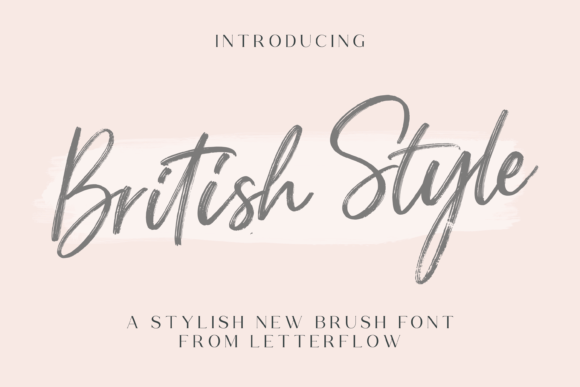
Prepare to be enthralled by the British Style Font, a script masterpiece that captures the essence of elegance and charm. This breathtaking font, meticulously crafted by Letterflow Studio, is a symphony of handwritten strokes, each line imbued with a touch of whimsy and sophistication.
With its brushed texture, the British Style Font exudes a sense of authenticity and warmth that is sure to capture the hearts of your readers, viewers, and customers. Its versatility knows no bounds, making it the perfect choice for an array of projects, from heartfelt quotes and stunning shirt designs to captivating websites and unforgettable branding.
Picture the British Style Font gracing your children's designs, adding a touch of enchantment to their imaginative worlds. Envision your blog posts and logos adorned with this font, leaving an indelible mark on the minds of your readers. Invitations crafted with the British Style Font will exude an air of sophistication, setting the tone for a memorable occasion.
But be warned, dear adventurers, this enchanting font is a Brush font, meaning it may not be the ideal companion for cutting programs. Its true calling lies in the realm of web and print, where its beauty shines brightest.
Immerse yourself in the world of the British Style Font, and watch as your creative visions come to life with unparalleled grace and charm.